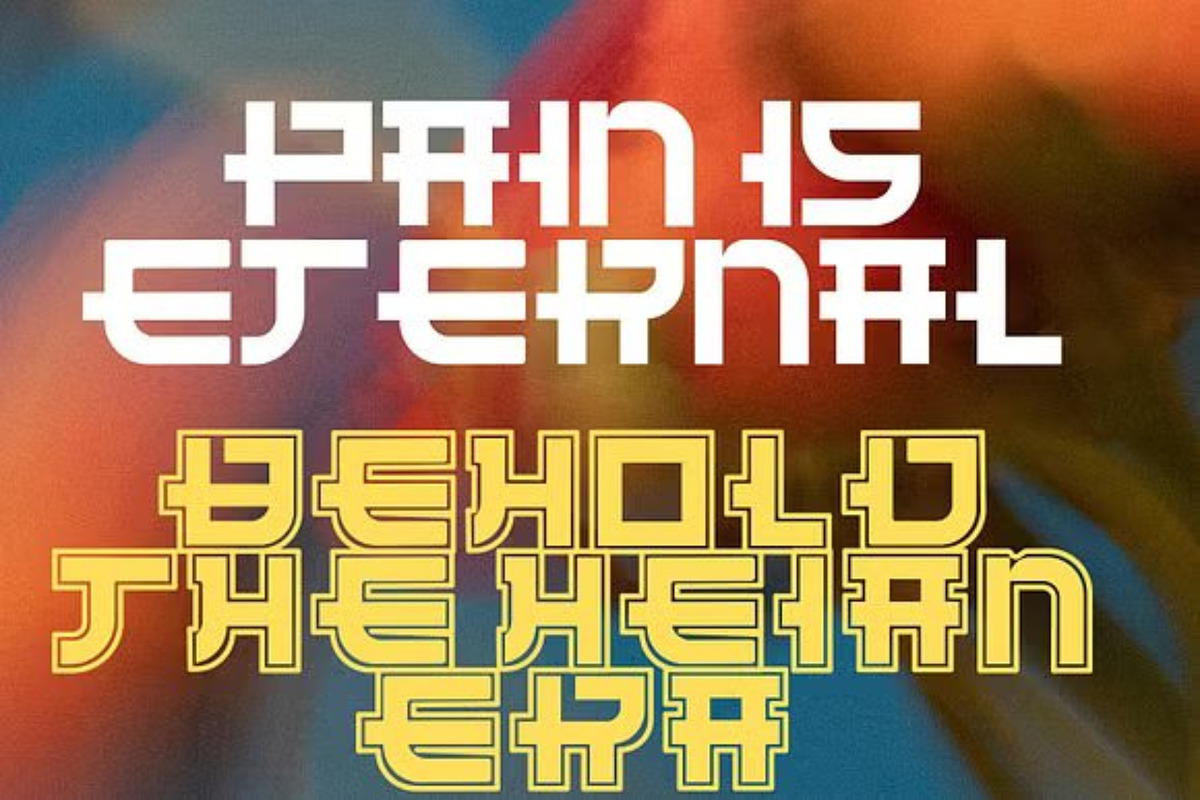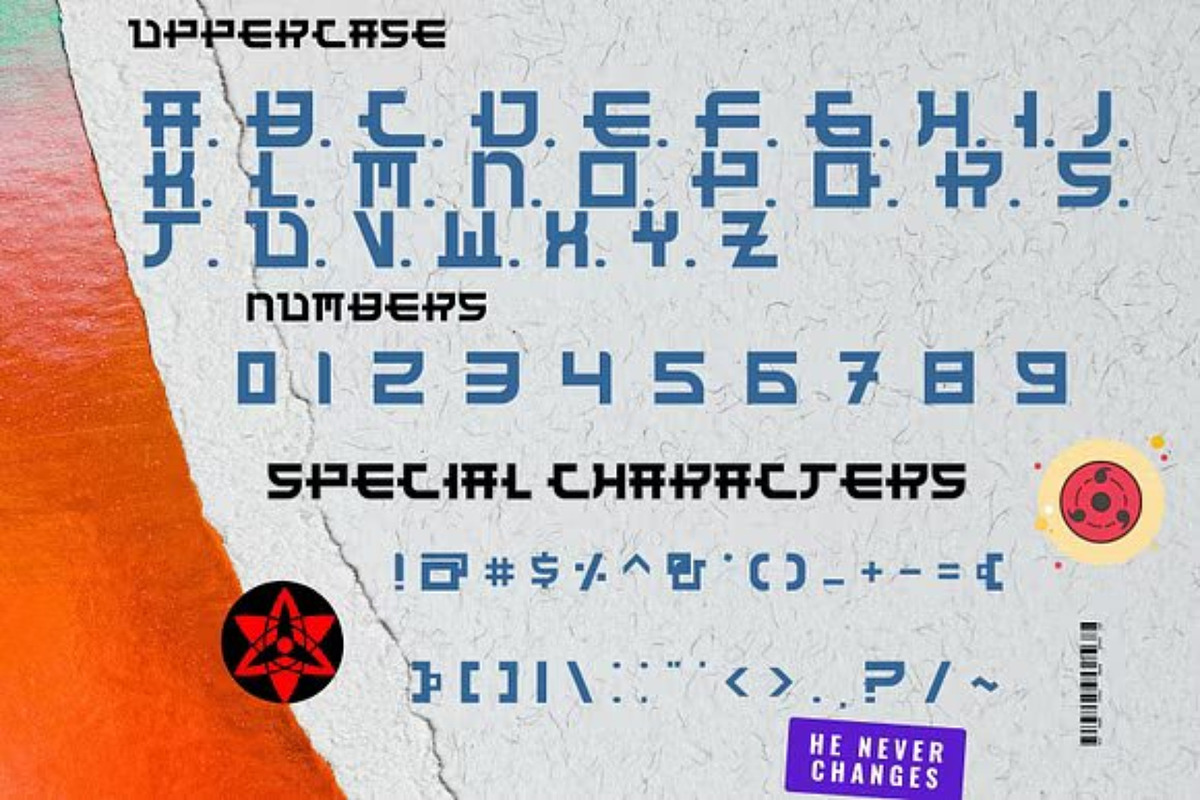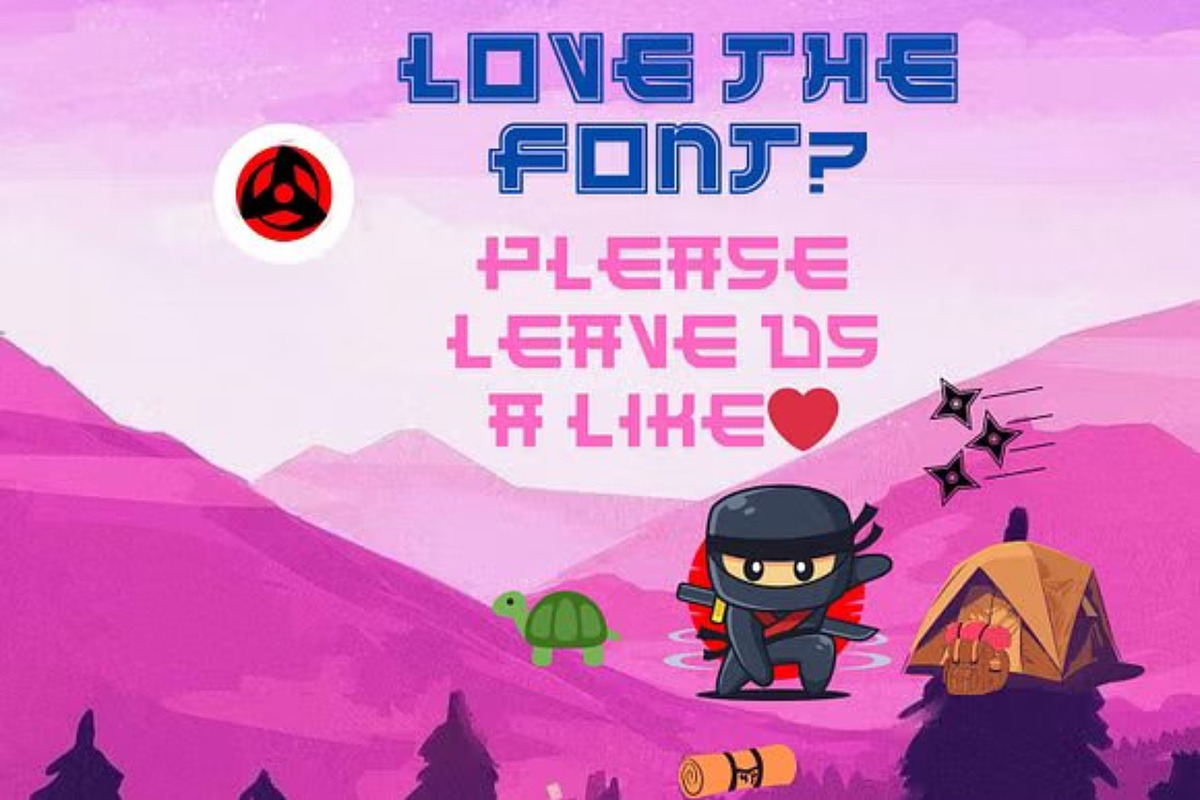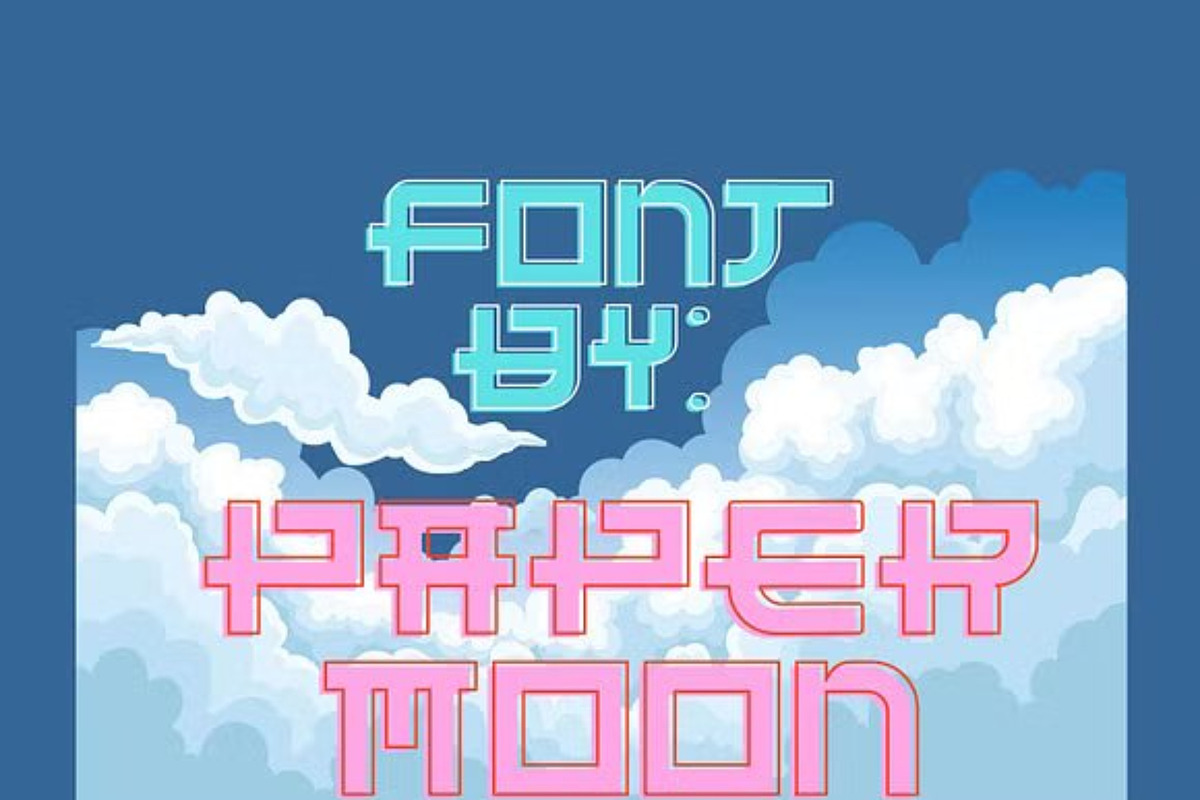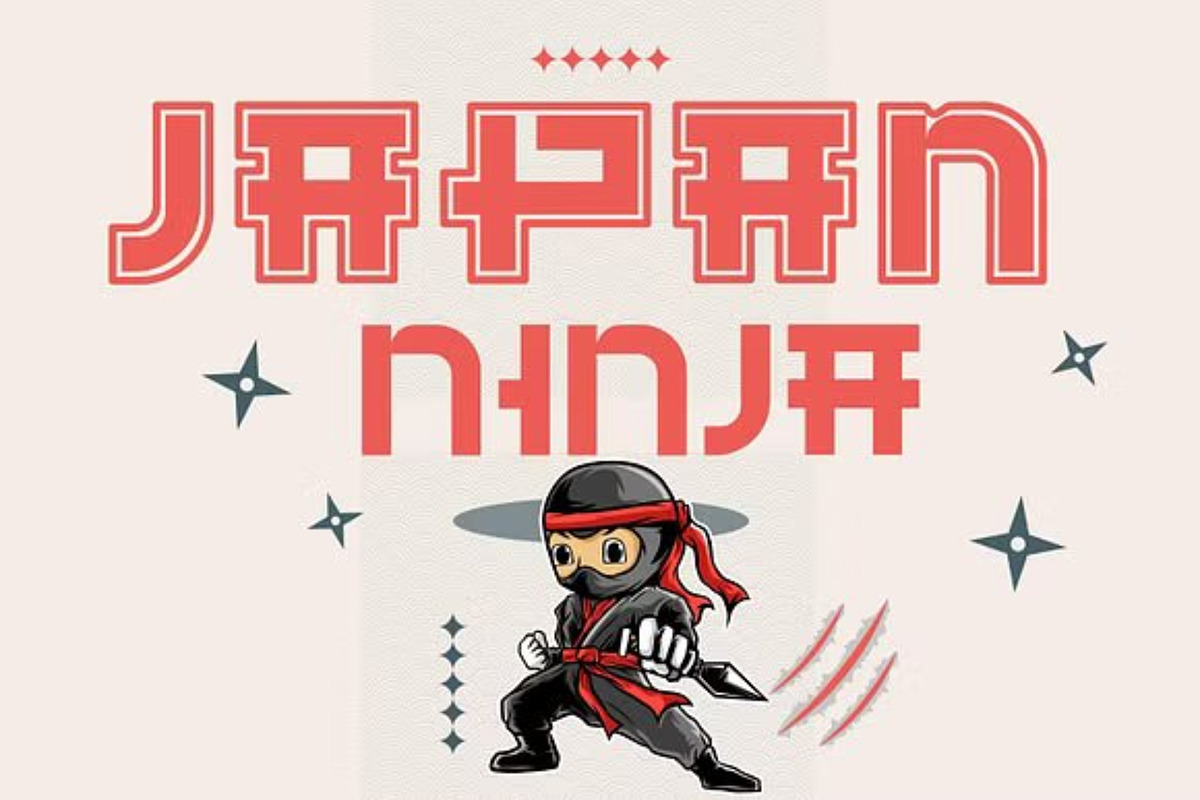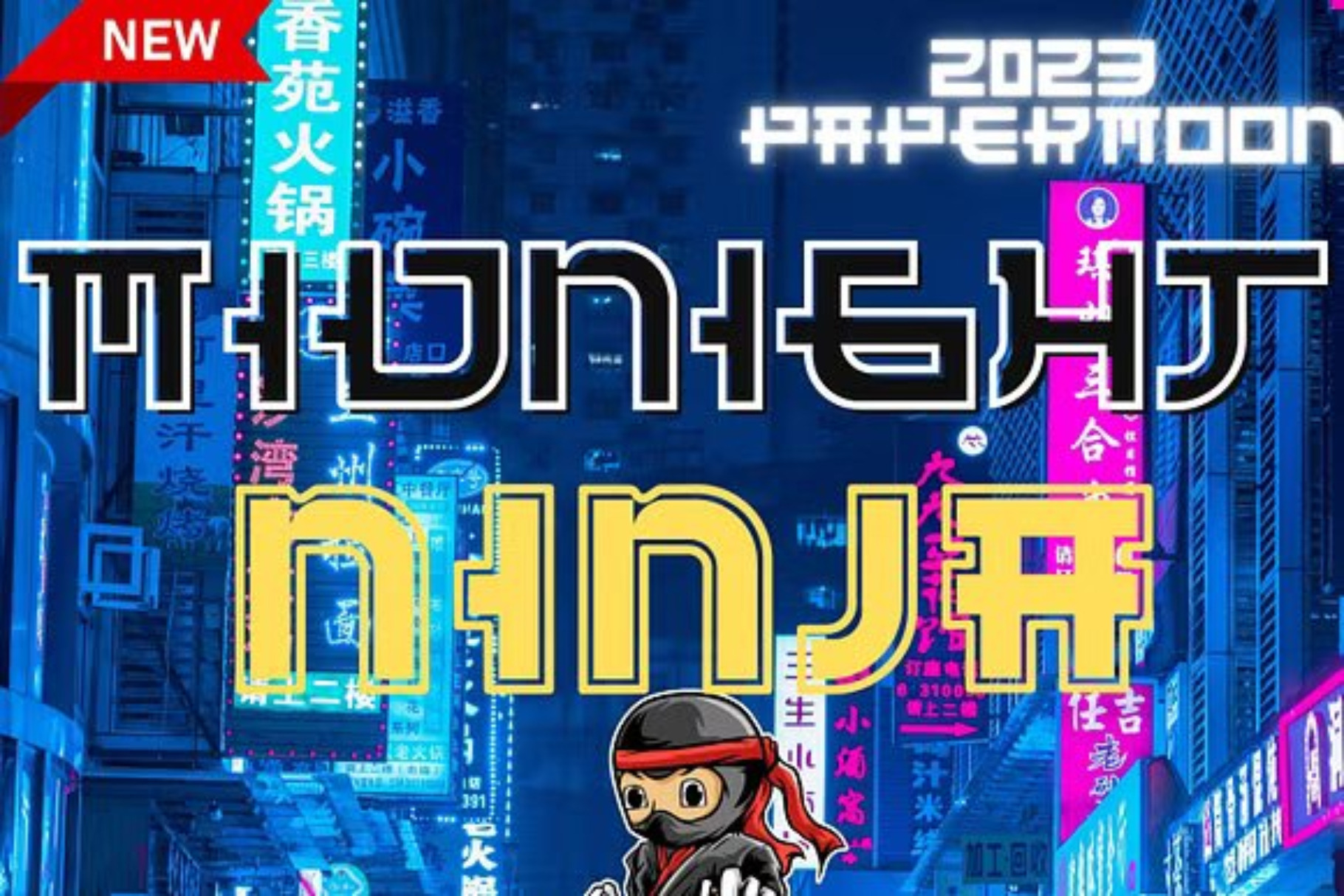
Midnight Ninja Samurai Font Duo
Introducing Midnight Ninja: A Dynamic Sans Serif Font Family with a Japanese Comic Flair
We’re thrilled to unveil our newest font collection: Midnight Ninja! Drawing inspiration from Japanese comic themes, this sans serif font family exudes a unique and playful charm, perfect for adding a creative twist to your design projects. Midnight Ninja offers two styles—Regular and Outline—giving you the flexibility to choose the perfect look for your designs.
Ideal for a wide range of projects, Midnight Ninja shines in logos, branding, flyers, headlines, magazines, and more. Its versatility makes it suitable for industries like casual, comic, services, and even a Japanese law firm, ensuring it adds a distinctive and creative touch wherever it’s used.
Infuse your projects with a fun, comic-inspired aesthetic—Midnight Ninja is the perfect choice for all your creative needs!